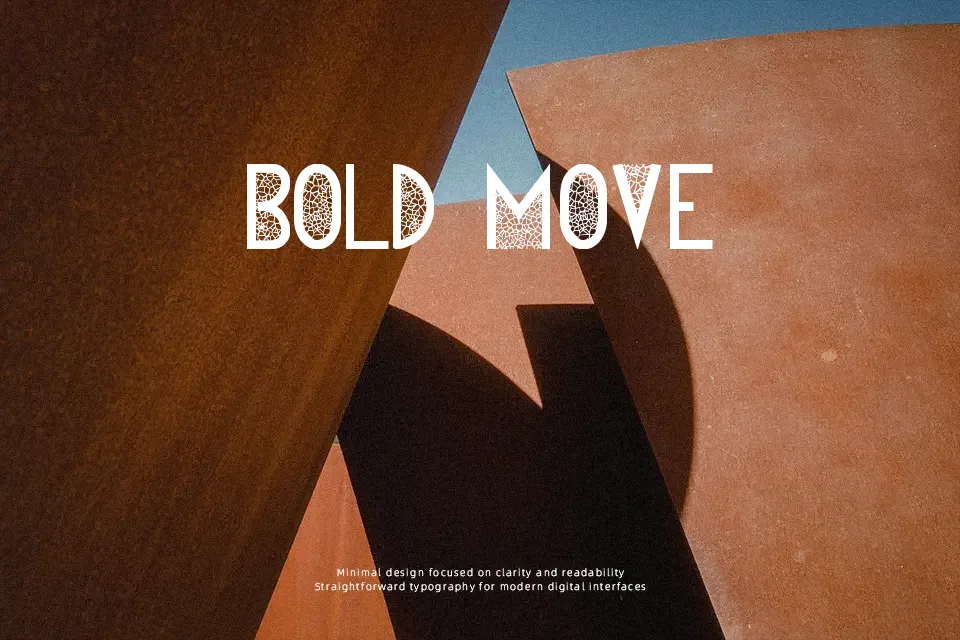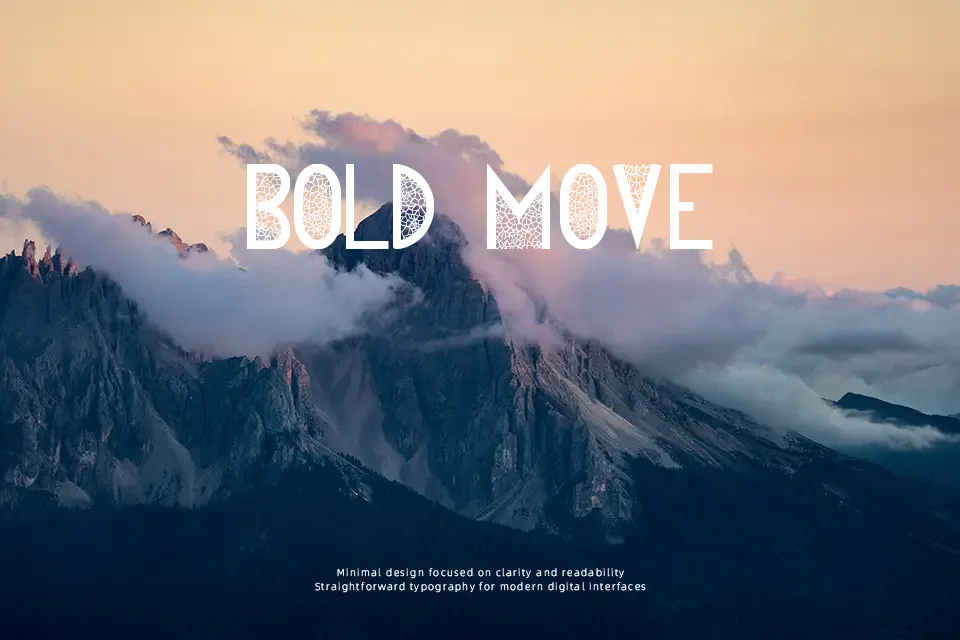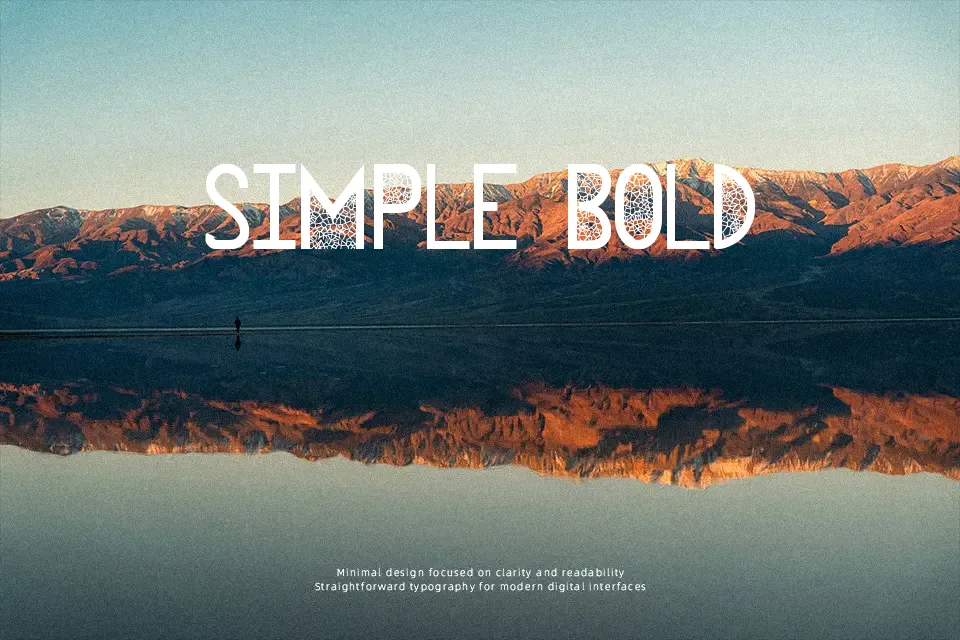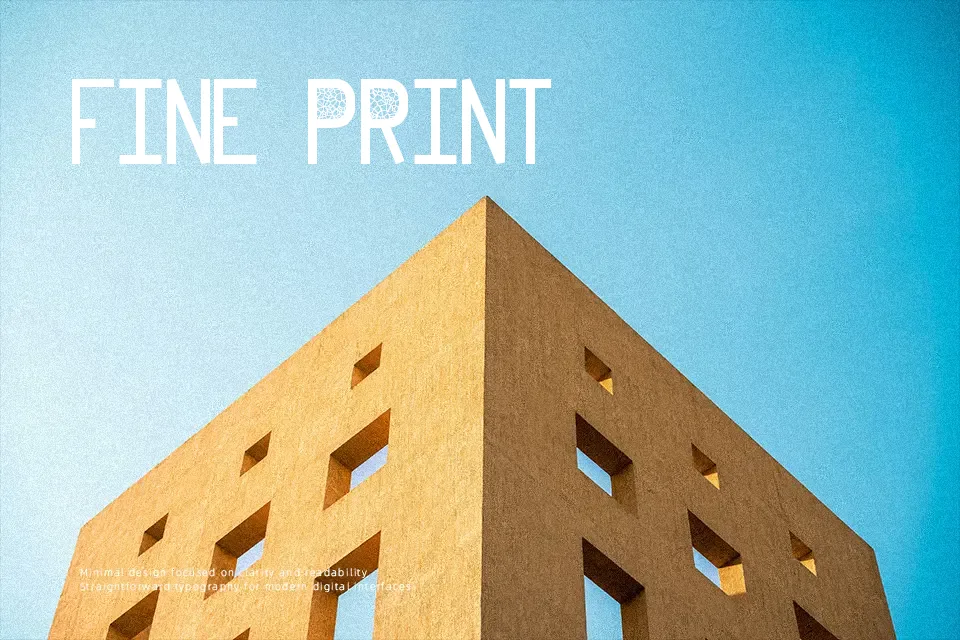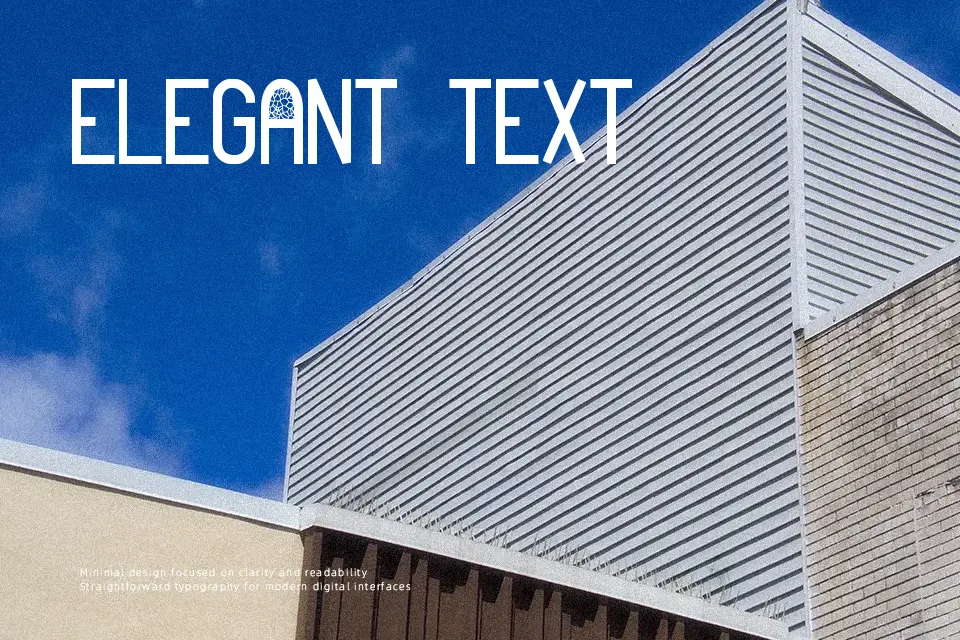
Cathedral ST Font
Cathedral ST Font features a rigid geometric display structure built with uniform stroke weights and elaborate internal linework that simulates architectural tracery. Each letterform maintains consistent vertical proportions and squared outer contours, complemented by even character spacing that preserves glyph separation. While the typeface delivers strong aesthetic presence in oversized headlines, theatrical promotions, and specialty product packaging, the intricate internal details deteriorate rapidly in smaller point sizes. Consequently, the dense decorative complexity significantly reduces legibility in extended text settings. The letterforms perform best when given ample surrounding white space at major display scales.
Best For: Theatrical stage banners, gothic event posters, decorative book covers, specialty product packaging
Not Ideal For: Continuous body copy, mobile user interfaces, dense document tables, small print captions
Perfect for branding, headline, and invitation, with a artistic and decorative style.